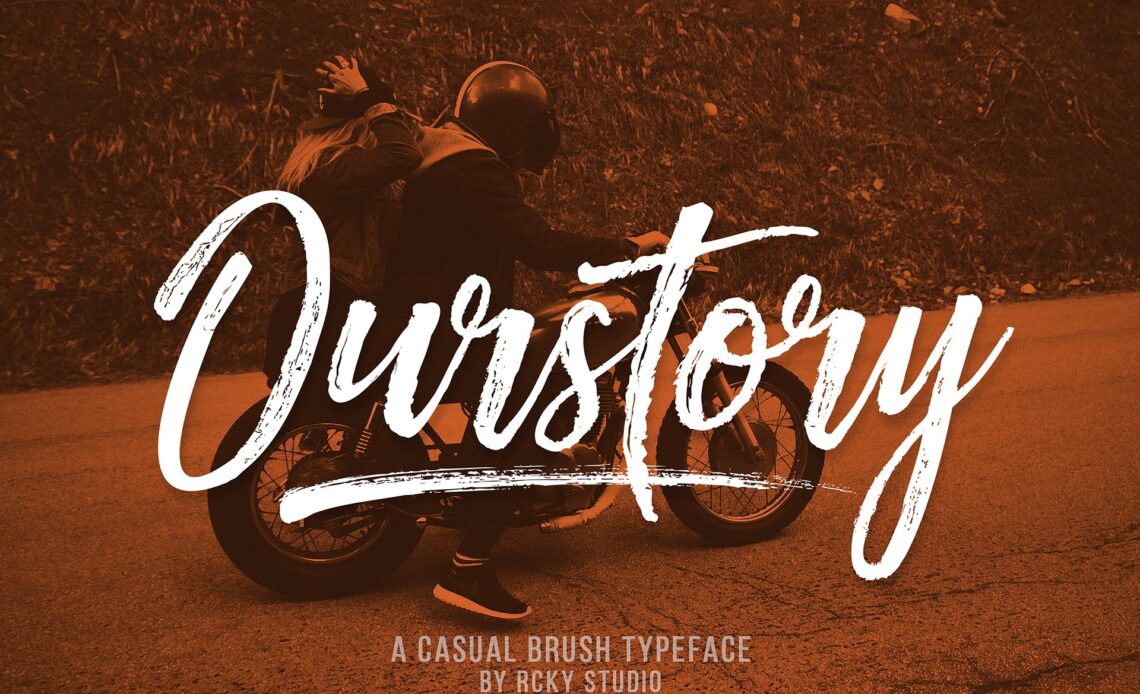
Introducing Ourstory Font Duo, a captivating and versatile addition to your font collection. Created by rckystudio, this hand drawn textured brush font offers a contemporary twist to typography that will leave you spellbound. Get ready to elevate your designs with the endless possibilities that Ourstory brings to the table.
Ourstory Font Duo is more than just a font; it's a work of art. With its deft craftsmanship and attention to detail, this font is perfect for adding a touch of elegance and sophistication to your projects. Whether you're designing a wedding invitation, a logo, or a social media post, Ourstory will effortlessly elevate your work to new heights.
What sets Ourstory apart is its seamless combination of two distinct styles. The script font exudes grace and fluidity, while the textured brush font adds an edgy and artistic flair. Together, they create a harmonious duo that will make your designs stand out from the crowd.
Unleash your creativity and let Ourstory be the storyteller of your design journey. With its versatility, you can mix and match the fonts to create unique combinations that suit your vision. From vintage-inspired designs to modern and minimalist aesthetics, Ourstory adapts to any style effortlessly.
The power of Ourstory lies not only in its visual appeal but also in the emotions it evokes. Each letter is carefully crafted to convey a sense of warmth, authenticity, and creativity. Your audience will be captivated by the heartfelt messages you convey through this font, forging a genuine connection that goes beyond words.
In a world where first impressions matter, Ourstory Font Duo will ensure that your designs leave a lasting impact. Its eye-catching charm and versatility make it a must-have for designers and creatives alike. So, why wait? Download Ourstory now and unlock the endless possibilities that await you.